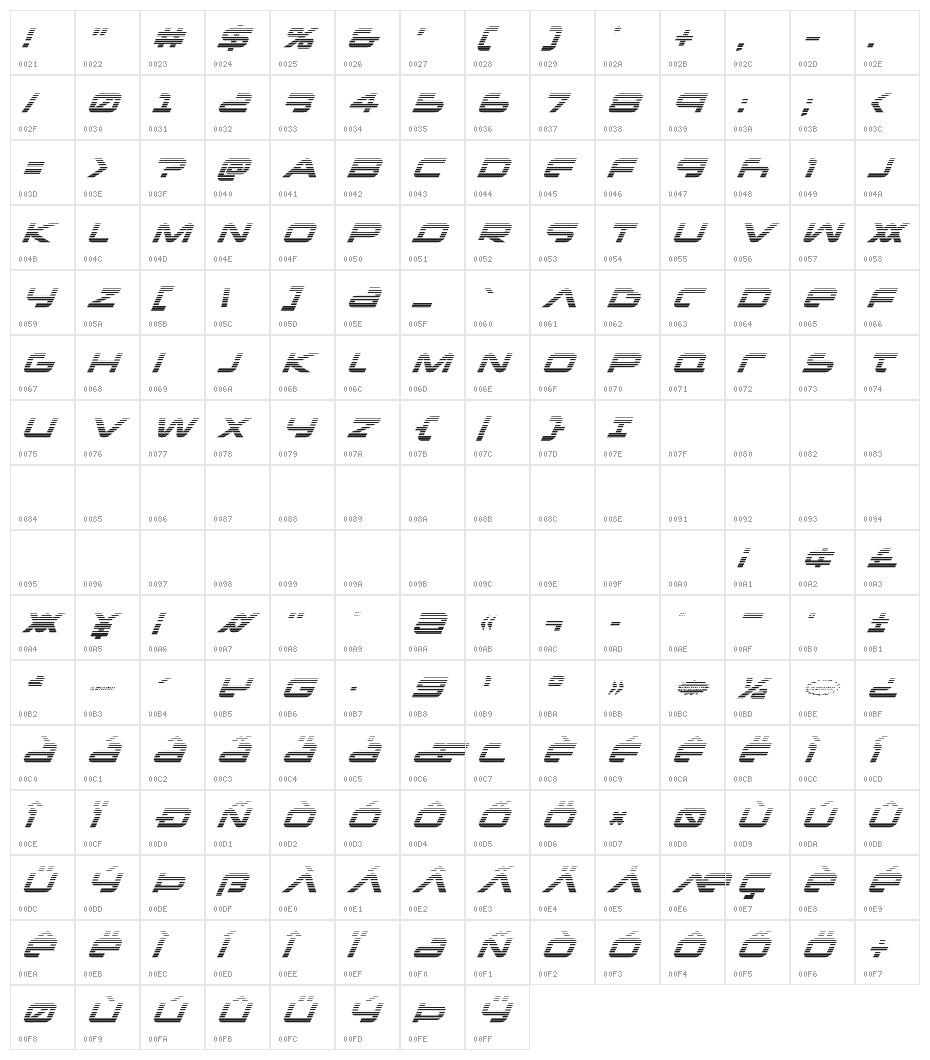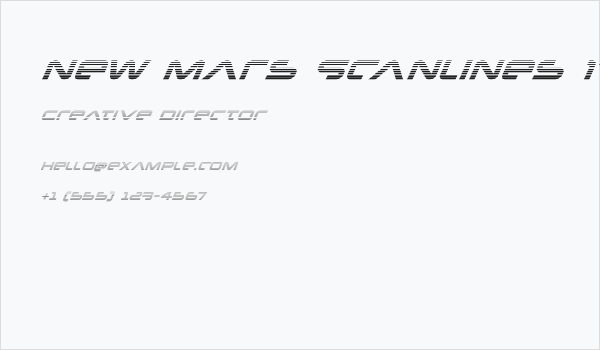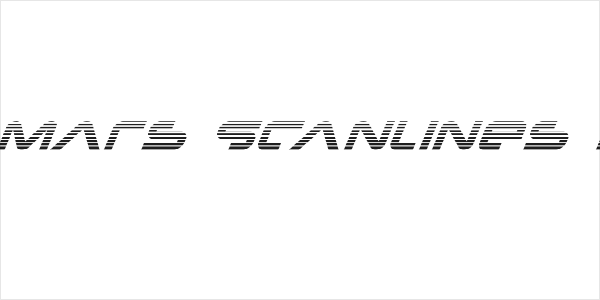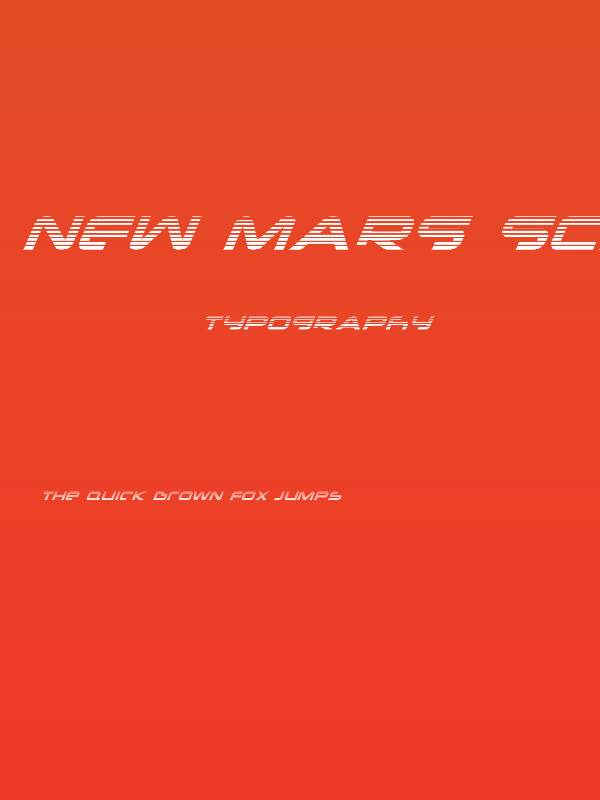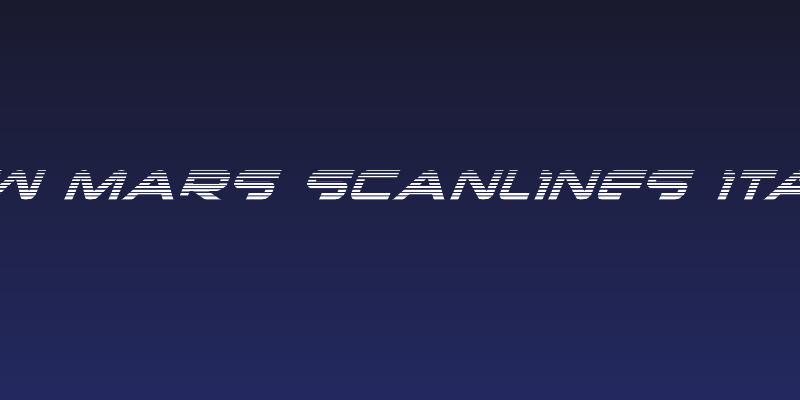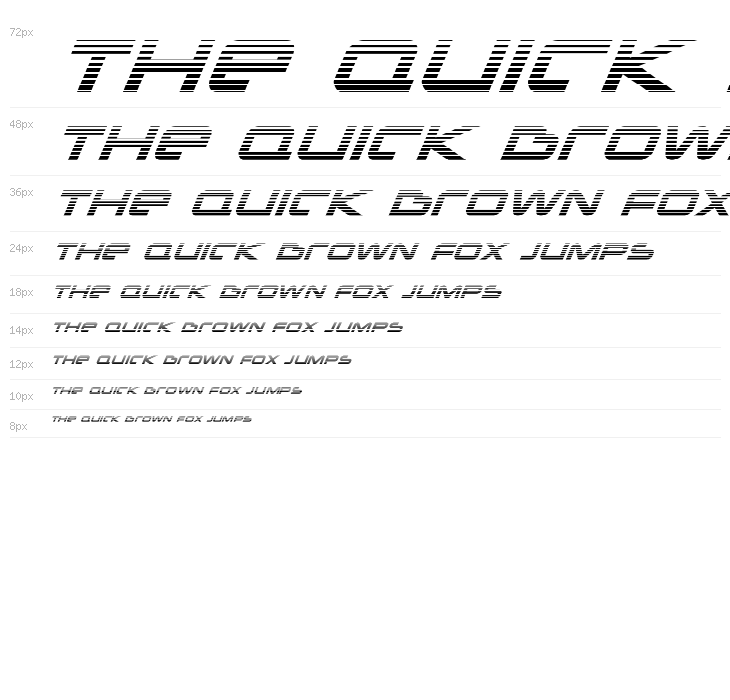
New Mars Scanlines Italic Font
New Mars Scanlines Italic Description
This font features a futuristic and dynamic design, characterized by horizontal lines that create a scanline effect across each character. The italicized style adds a sense of motion and speed, making it ideal for projects that require a modern and tech-savvy appearance. The uppercase and lowercase letters maintain a consistent style, with numbers and special characters following the same design principles. The font's unique aesthetic is perfect for digital and sci-fi themed projects, offering a distinct look that stands out.
| Proposed Projects | Suitable for digital interfaces, video game graphics, sci-fi movie posters, and tech branding. |